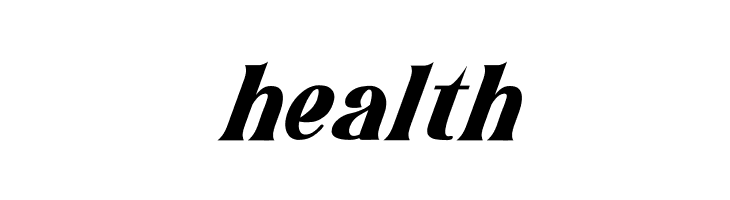
La Lemonti Font
A bold, high-contrast serif font with dramatic strokes and elegant serifs.
La Lemonti Italic Font
A dynamic italic font with high contrast and sharp serifs.